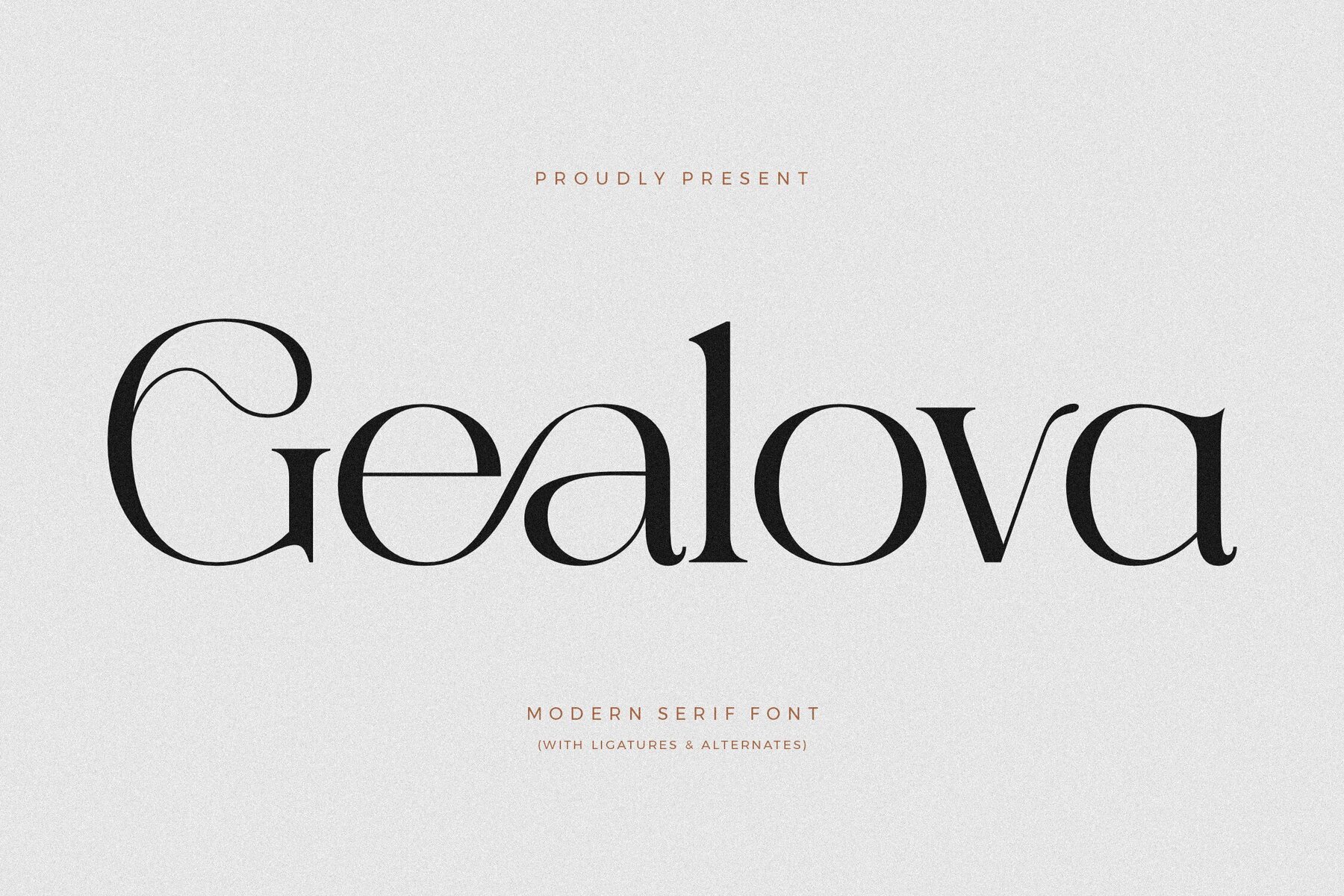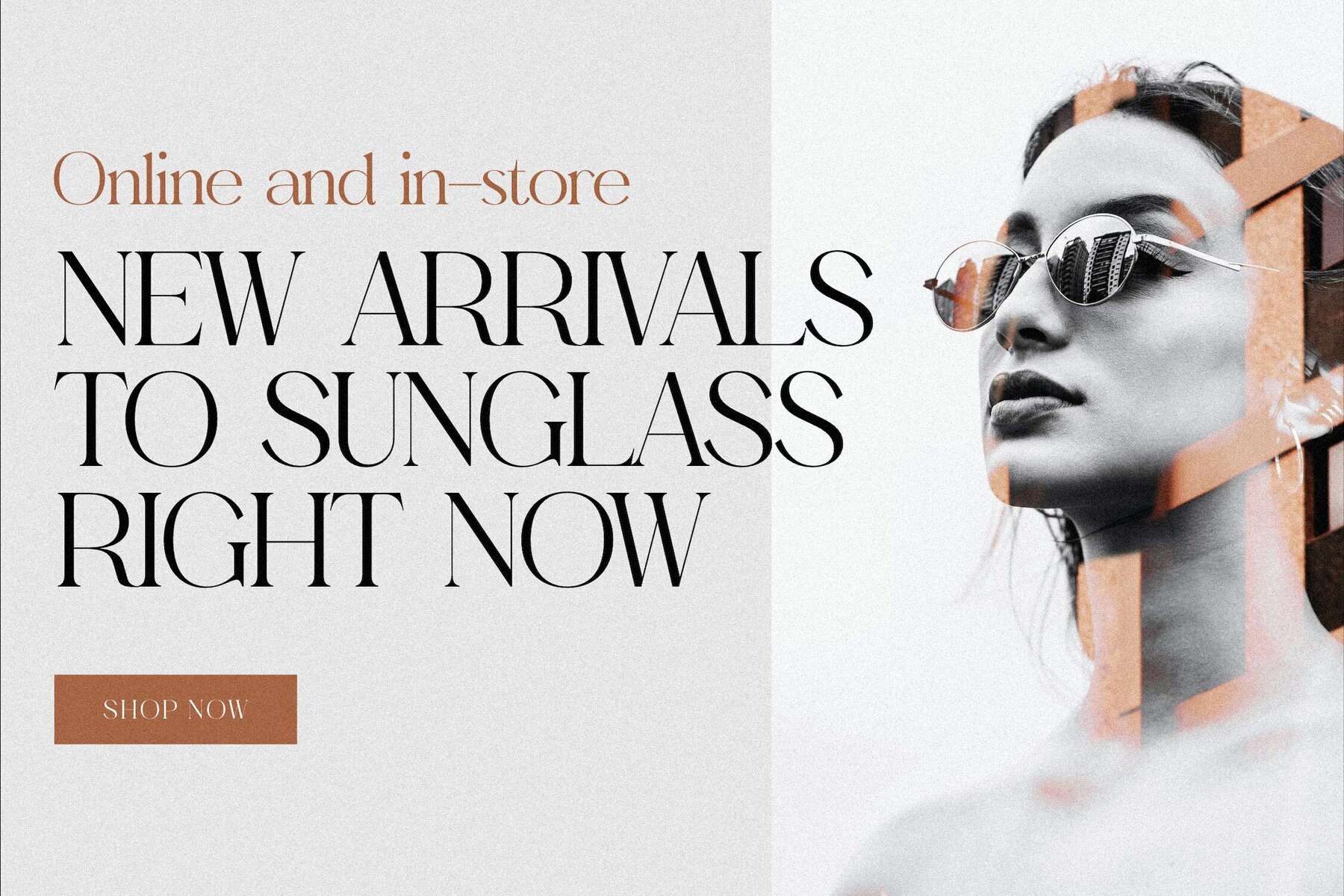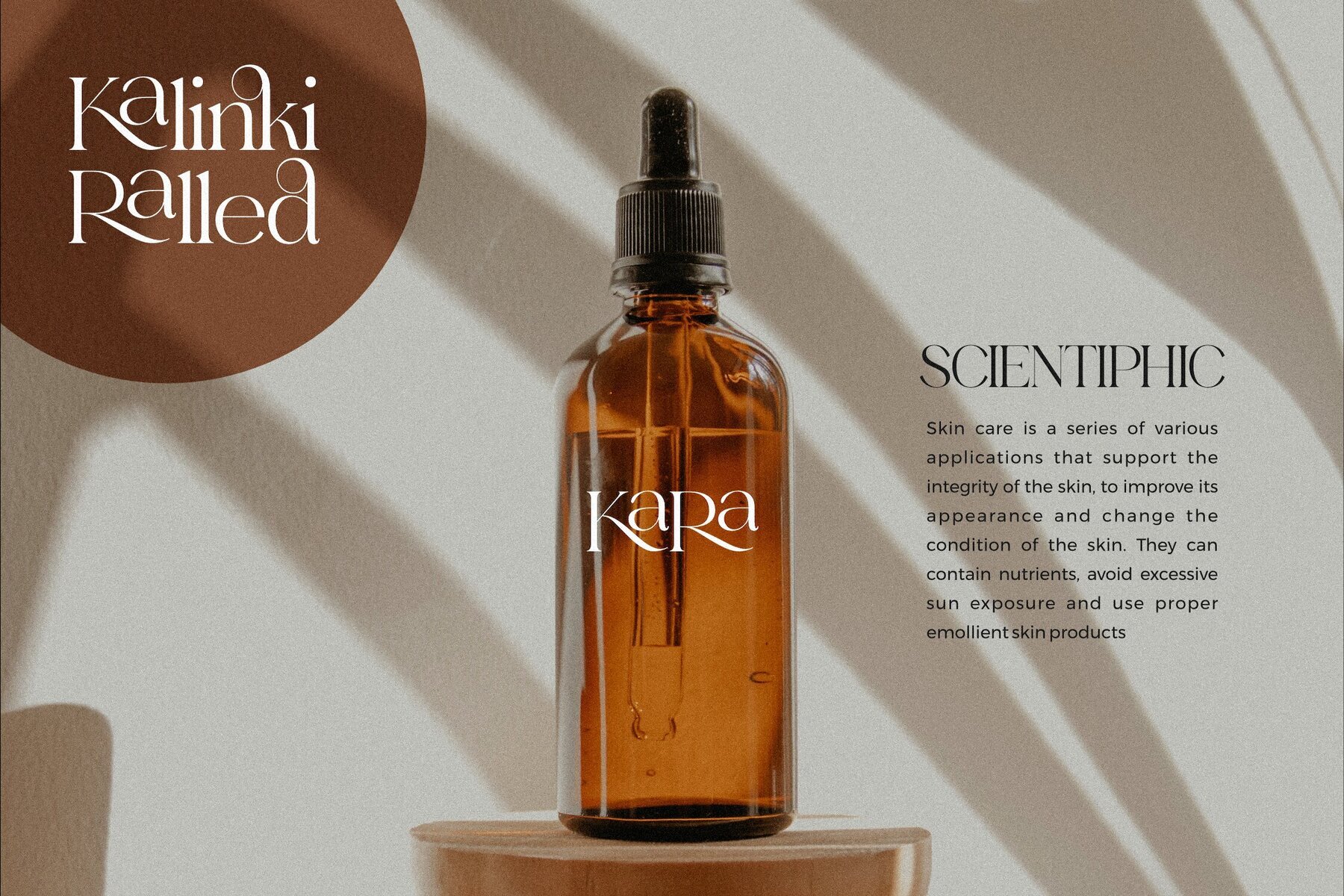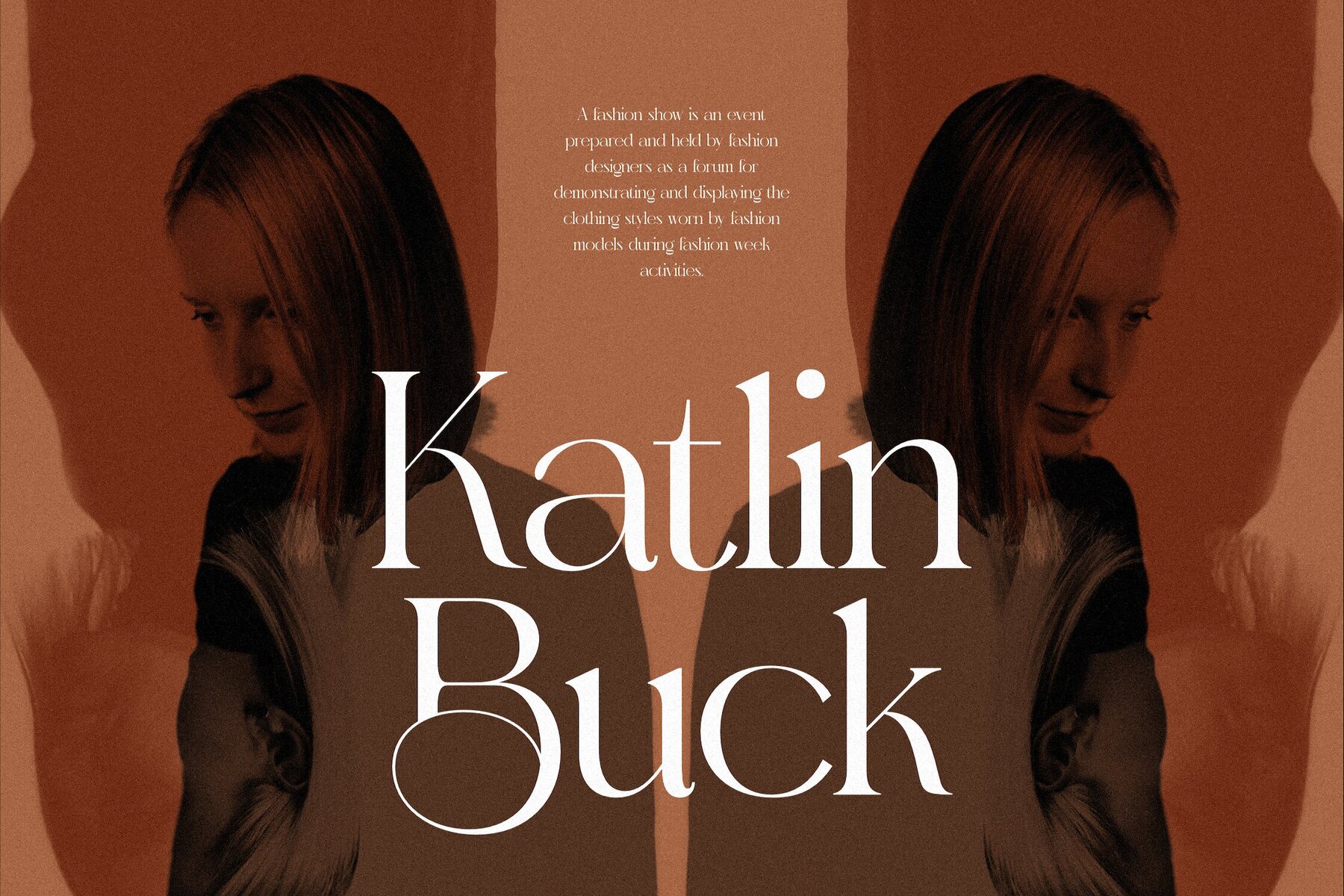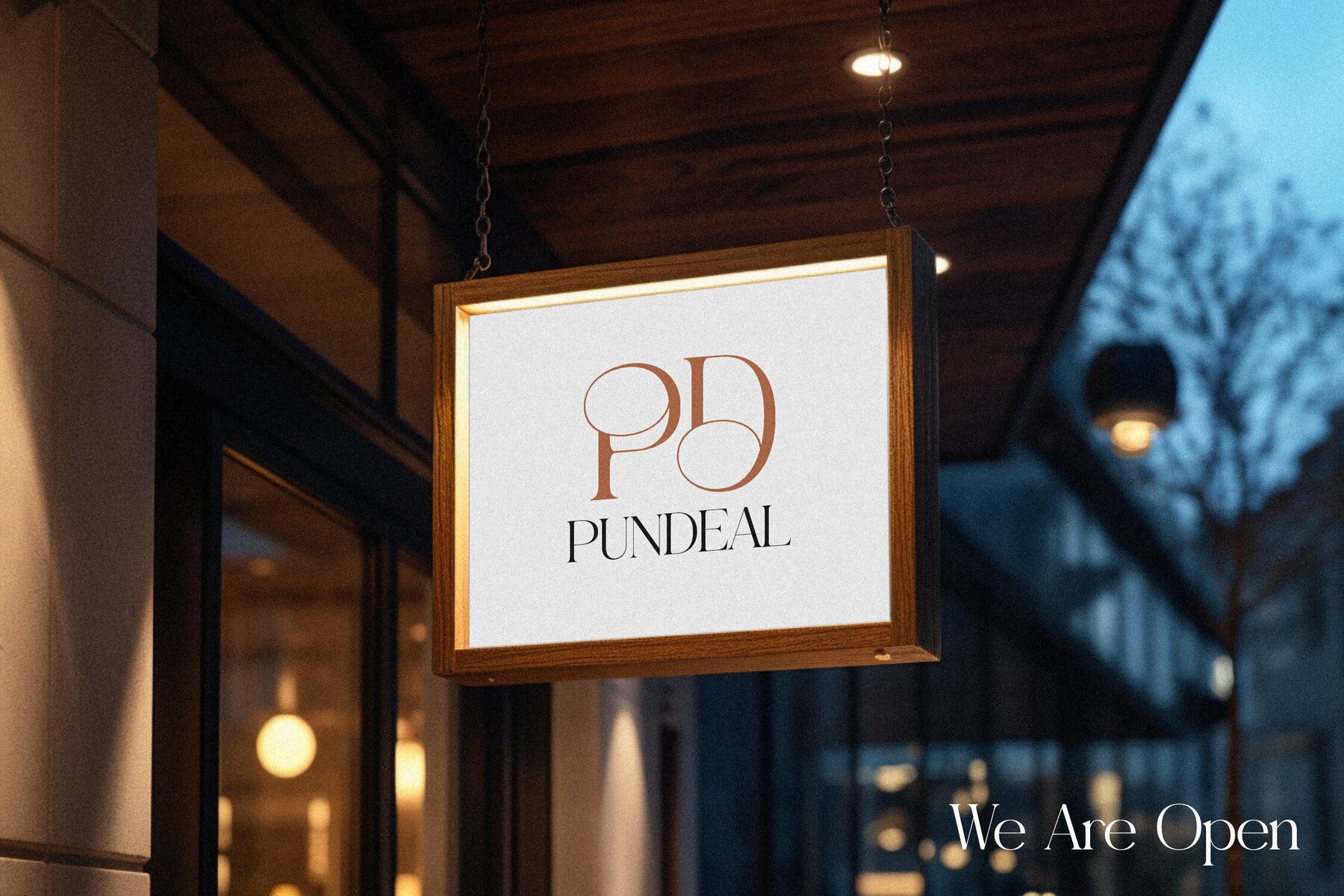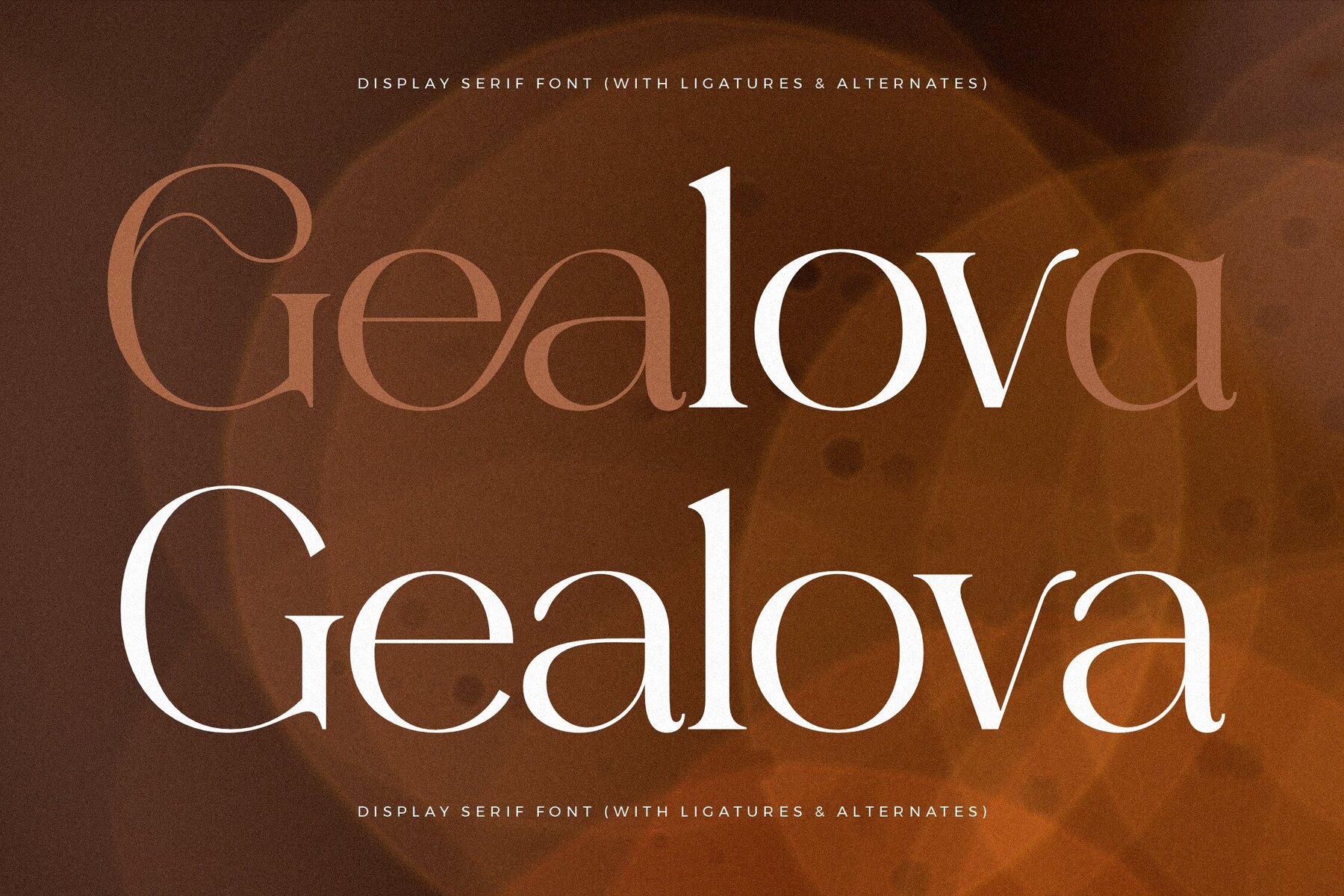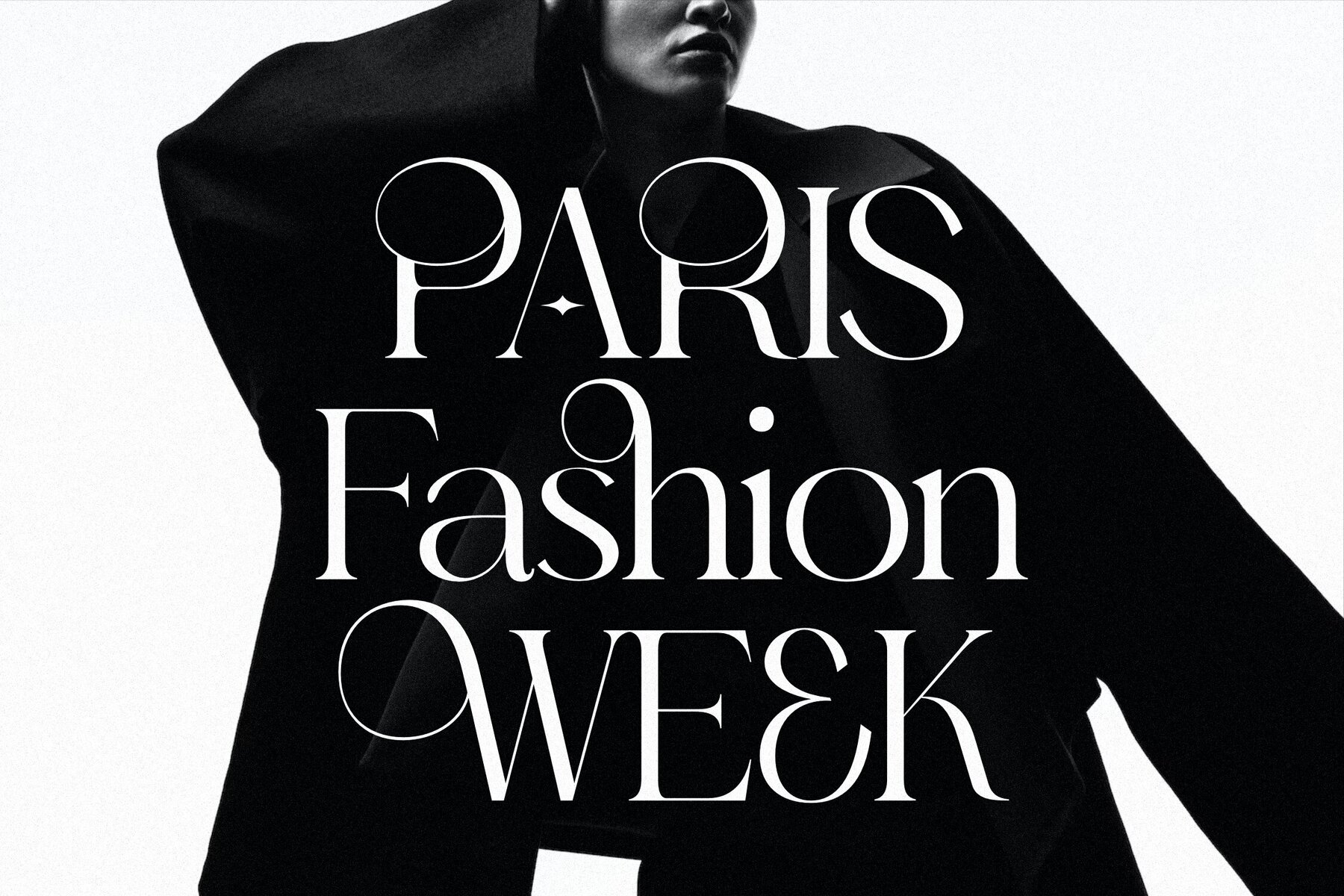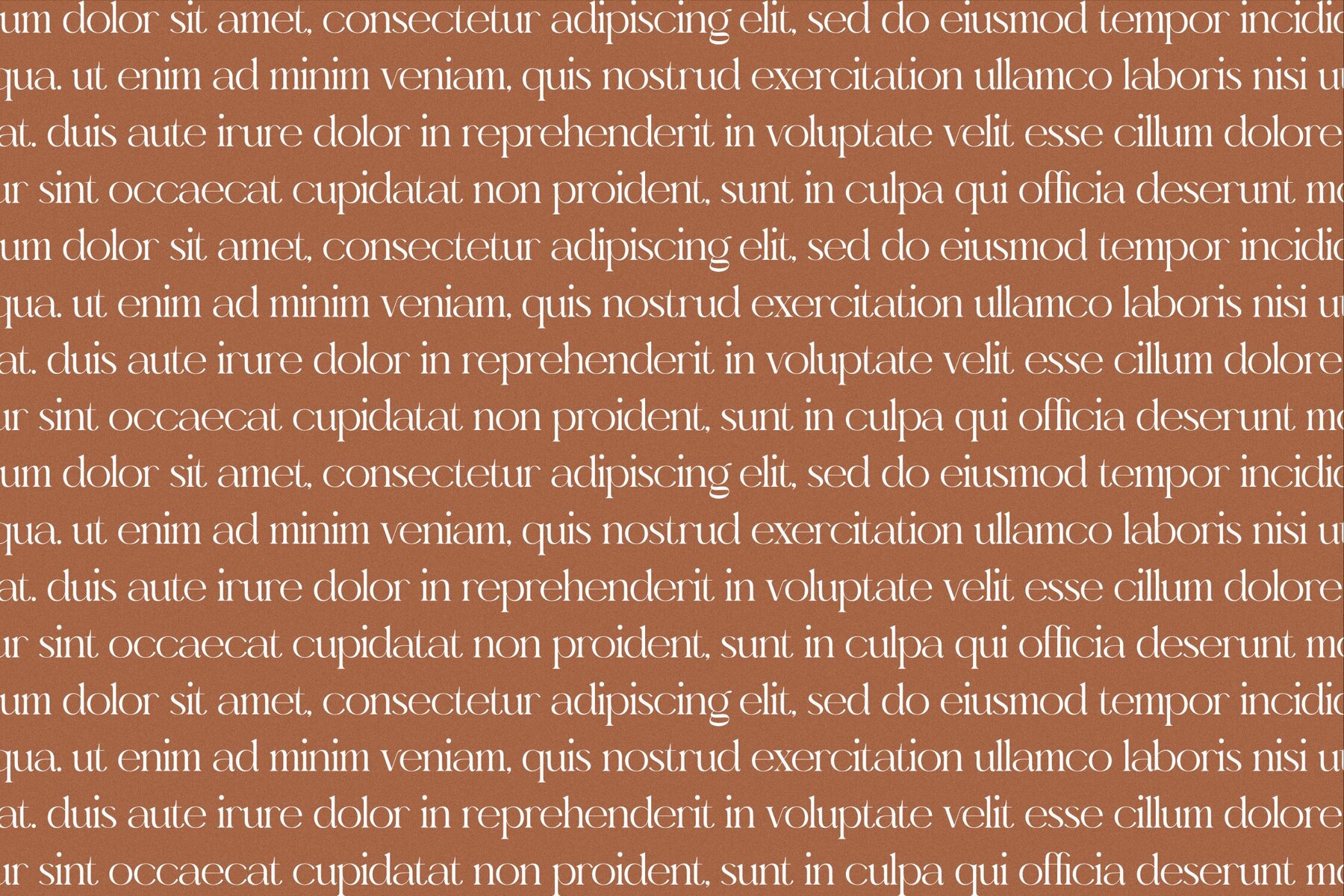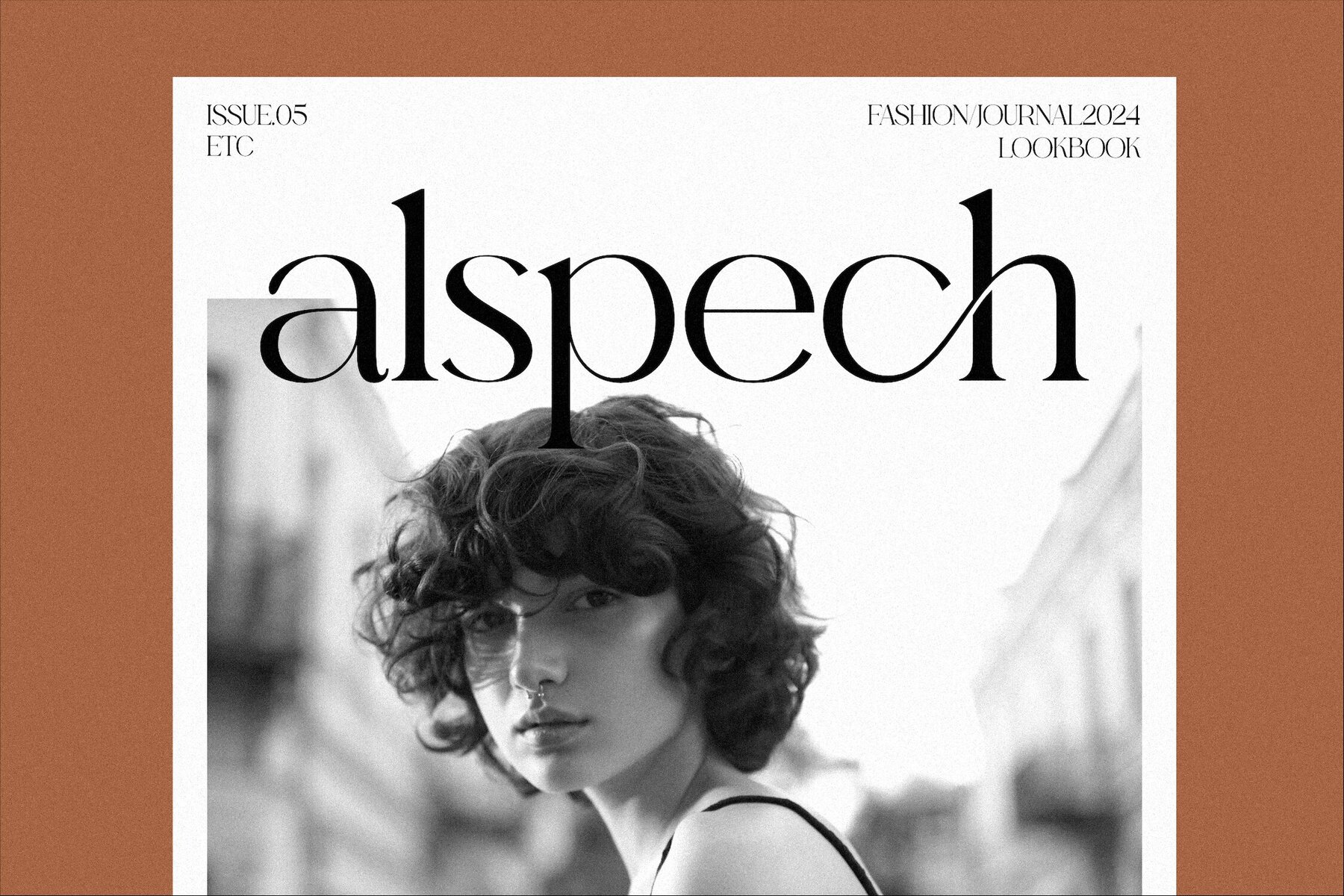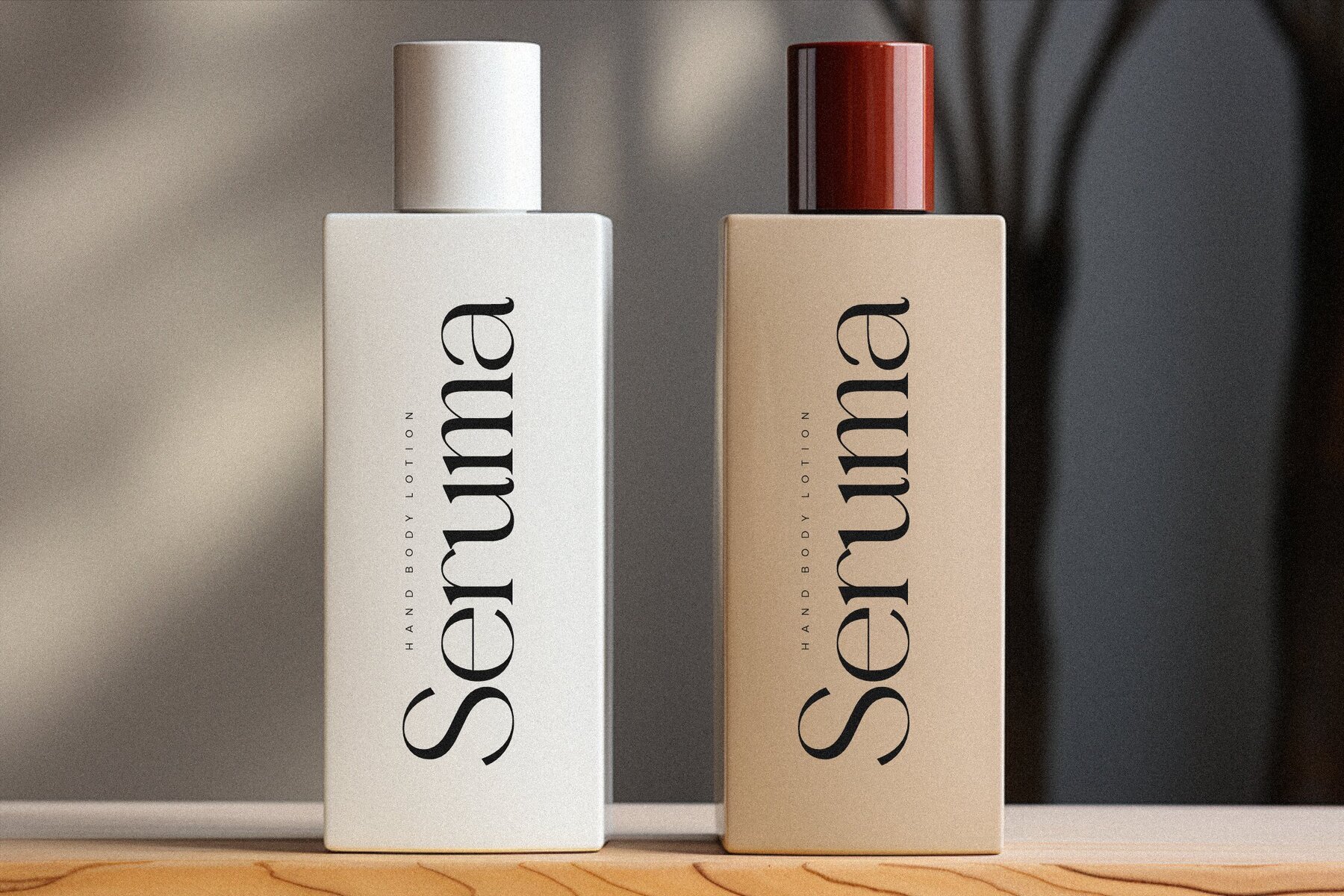
Gealova Font
Gealova Regular
Gealova Italic
The Gealova Typeface by Storytype Studio stands as a refined serif typeface, blending classic elements with a contemporary touch. This unique typeface is ideal for crafting elegant and luxurious logos, captivating book and movie titles, sophisticated fashion branding, stylish magazine layouts, clothing design, and impactful quotes. Its versatility makes it essential for any designer's toolkit.Gealova Typeface: Modern Elegance Redefined